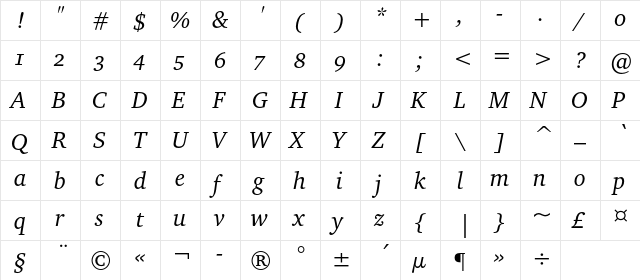
CharterOSC Italic Font Preview
CharterOSC Italic
CharterOSC Italic Font Details
Design Context for CharterOSC Typeface
CharterOSC offers clean, dependable letterforms without strong stylistic allegiance, making it a practical choice for designers who need flexibility. The slanted form adds forward momentum and visual energy.
Pro Tip: Use CharterOSC for emphasis, pull quotes, and subheadings where its slanted energy can add rhythm to the layout.